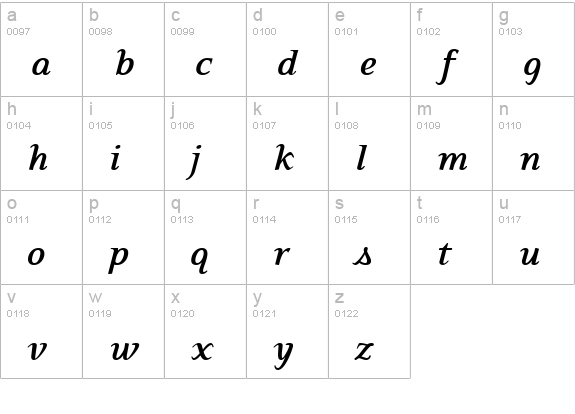
PFExecutive BoldItalic Font Details
PFExecutive BoldItalic font is a modern and sophisticated typeface that exudes confidence and professionalism. Its bold and italic design makes it perfect for adding emphasis and style to any project. The sleek curves and sharp angles of this font create a strong visual impact, making it ideal for headlines, logos, and other display uses. What sets PFExecutive BoldItalic font apart is that it is available for free download at FontsMarket.com. This means that you can easily access and use this high-quality font in your designs without any cost. Whether you are working on a business presentation, website, or any other project that requires a bold and elegant font, PFExecutive BoldItalic is a versatile choice that will elevate your design to the next level.